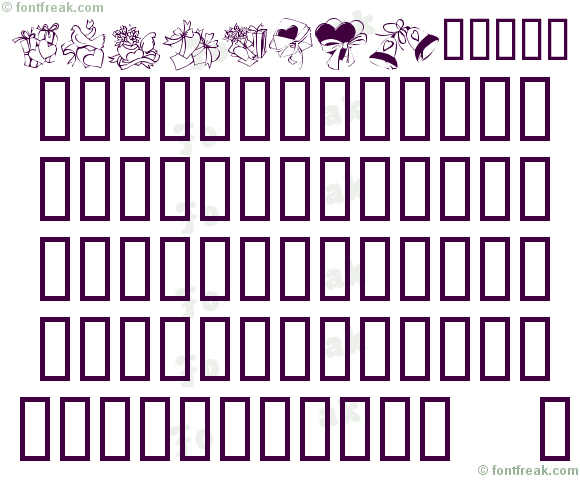
KR Cuori Divertenti 6
KR Cuori Divertenti 6, created by Kat's Fun Fonts in 2007, is a playful and decorative font that falls into the category of display typefaces. This unique font features a whimsical design characterized by its bold strokes and charming decorative elements, such as heart motifs and lively illustrations that add a sense of fun and personality to any project. The stroke weight is consistent, providing a cohesive look, while the spacing between characters is well-balanced, making it easy to read despite its decorative nature.
This font shines in various creative applications. It is particularly well-suited for wedding invitations, where its romantic flair can beautifully complement the theme. Additionally, KR Cuori Divertenti 6 is an excellent choice for children's party invitations, providing a joyful, festive vibe that appeals to young audiences. Graphic designers can also utilize this font for eye-catching movie posters, where the playful elements can draw attention. For small business owners, using this font on restaurant menus can create a friendly atmosphere, enticing diners with an inviting presentation.
The target audience for KR Cuori Divertenti 6 includes graphic designers, content creators, and small business owners looking to infuse their projects with a sense of whimsy and charm. Whether you're crafting a vibrant flyer or designing a unique branding element, this font offers versatility and creativity.